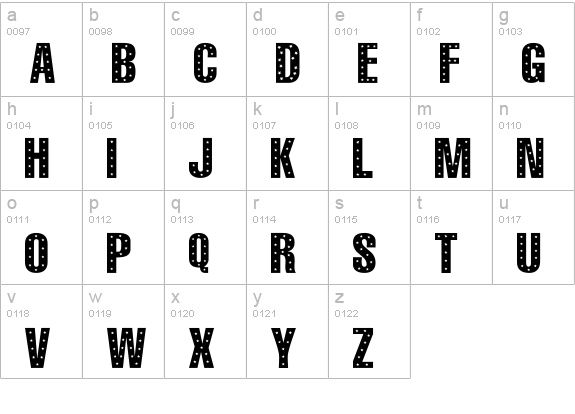
Introducing the mesmerizing and captivating 101! StaR StuDDeD font, a stunning display typeface that exudes elegance and sophistication. Each letter is intricately designed with star-studded elements, adding a touch of glamour and luxury to your projects. This unique font is perfect for creating eye-catching headlines, posters, invitations, and more. Its bold yet elegant appearance makes it stand out and grab the attention of viewers. Whether you're working on a branding project, a party invitation, or a social media graphic, 101! StaR StuDDeD font will elevate your designs to the next level. And the best part? This exquisite font is available for free download at FontsMarket.com! Simply visit the website and add this gorgeous typeface to your collection without any cost. Don't miss out on the opportunity to enhance your designs with the beauty and charm of 101! StaR StuDDeD font. Download it now and let your creativity shine!